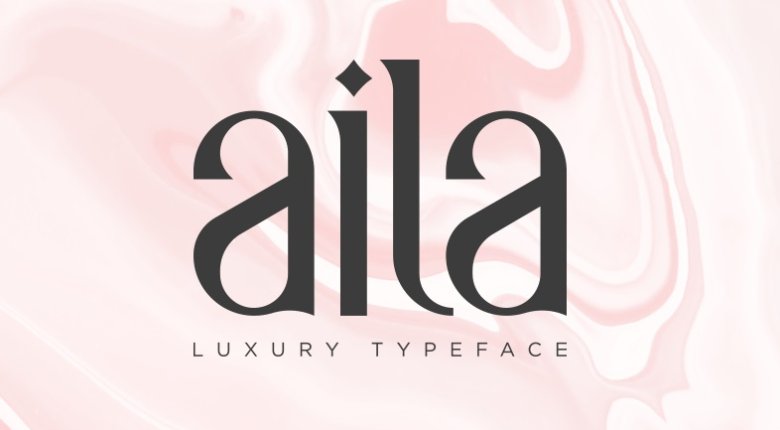
Aila Typeface
Introducing Aila Typeface! Aila designed and shared by Shibu PG. Aila is a modern typeface. This typeface is suited for many applications like Magazines, Editorial, Posters, Weddings, Websites, Books, Branding & Identity, Photography, Fashion etc.
Aila Sans Serif Typeface